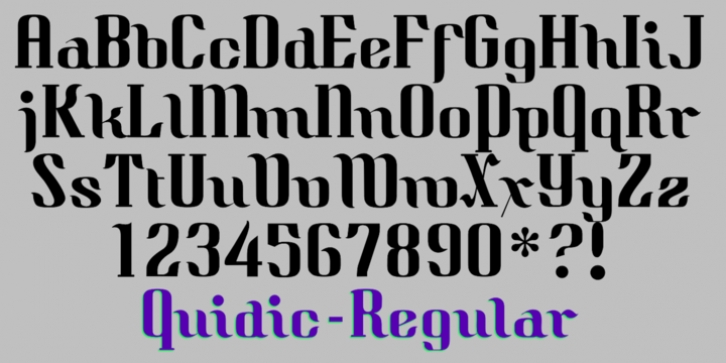
Quidic has upper-case letters that are strongly vertical, condensed, and bold. The lower case letters do not have serifs similar to those on the upper-case letters, but rather have the serif shapes one expects from an italics style. There is an italics style to the family and it is unusual because the lower-case letters keep their shapes but the upper-case letters the numbers change. Although some Bauhaus fonts have several letter shapes that are similar, there is no other typeface quite like Quidic.